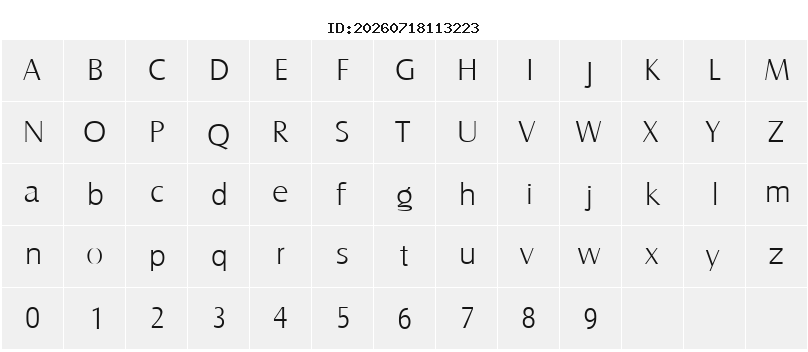
Castle Becker Light Preview
• Font Name: Castle Becker Light
About Castle Becker Light.ttf
Castle Becker Light.ttf is a modern, elegant sans-serif font designed for ultimate readability and visual harmony. Perfect for branding, headlines, web design, and print materials.